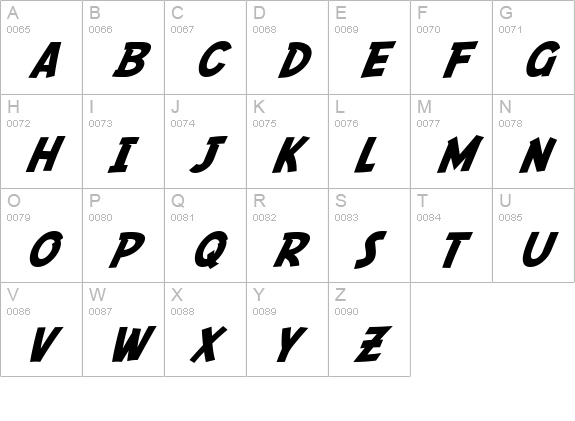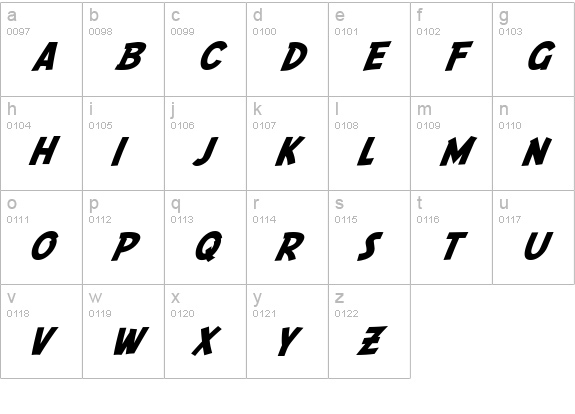
SF Fedora Font Details
SF Fedora is a modern and stylish font that effortlessly combines elegance with a touch of sophistication. This versatile typeface is perfect for a wide range of design projects, from branding and logo design to editorial layouts and web design. With its clean lines and refined letterforms, SF Fedora exudes a sense of professionalism and professionalism. Its sleek and contemporary look makes it ideal for conveying a sense of modernity and forward-thinking. One of the best features of SF Fedora is that it is completely free. That's right, you can download this incredible font without spending a dime. It is freely available to download at FontsMarket.com, a trusted source for high-quality fonts. Whether you're a professional designer or someone who just enjoys experimenting with typography, SF Fedora is a must-have addition to your font collection. Its versatility and timeless appeal make it a font that you'll find yourself reaching for time and time again. So why wait? Start incorporating SF Fedora into your designs today and watch as your projects come to life with a touch of elegance and style. Download this amazing font for free at FontsMarket.com and let your creativity soar.